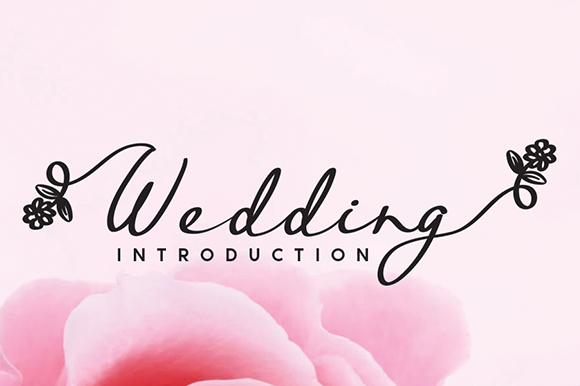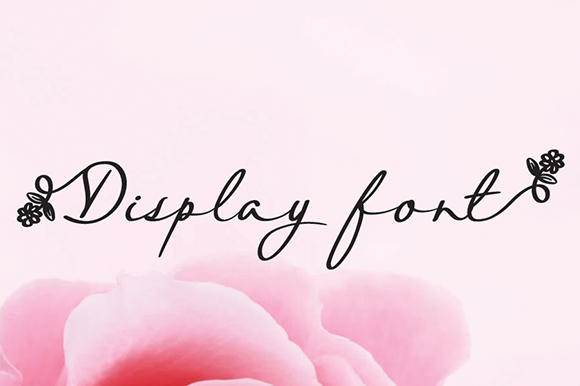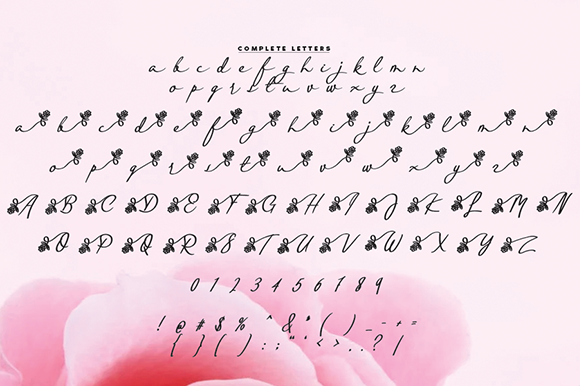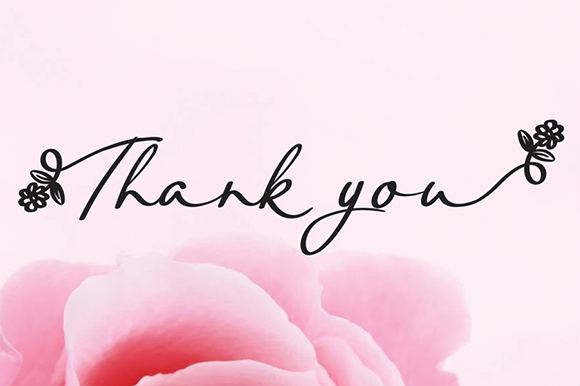
Introduction to Jakallia Font
Jakallia is a gorgeous handwritten font.
It features flower-themed characters and extras that will add a cute touch to your crafting projects Whether youโre looking for fonts for Instagram or calligraphy scripts for DIY projects, Jakallia will turn any creative idea into a true piece of art.